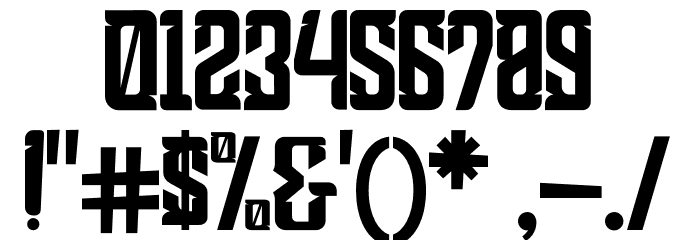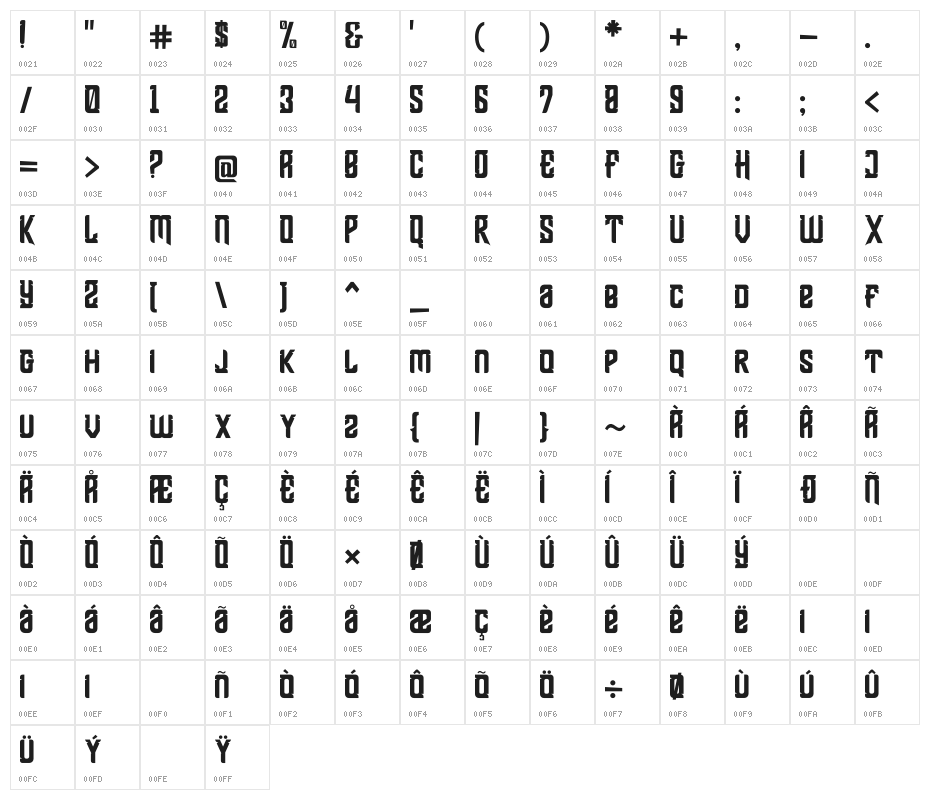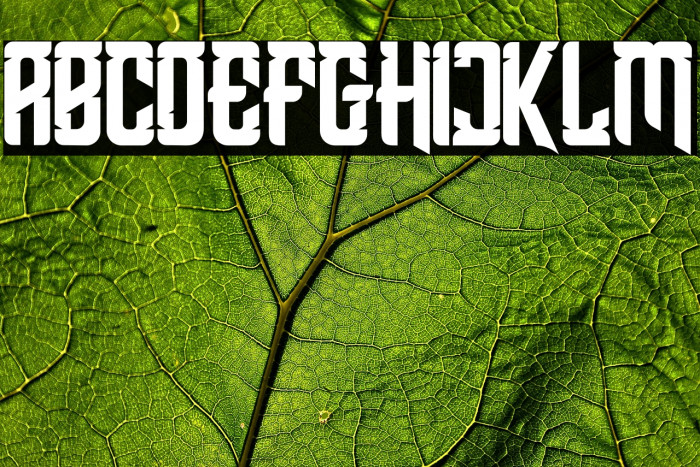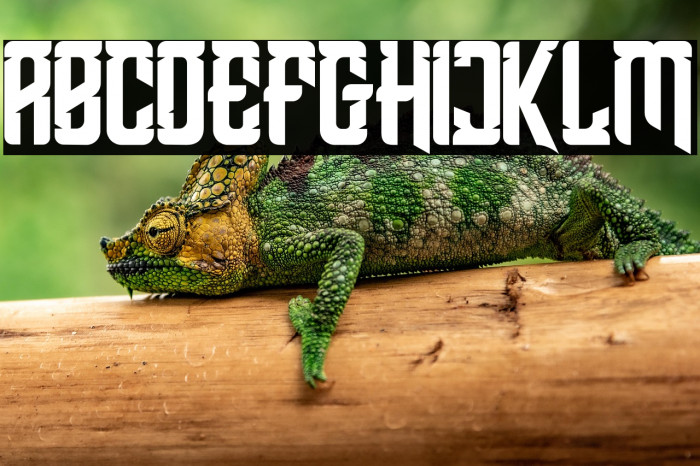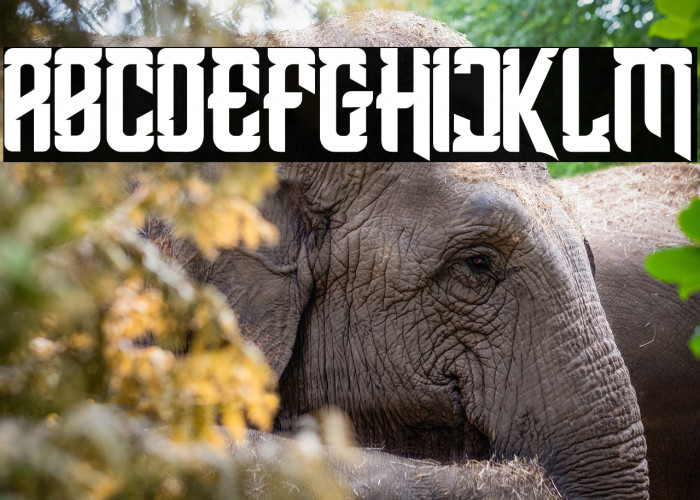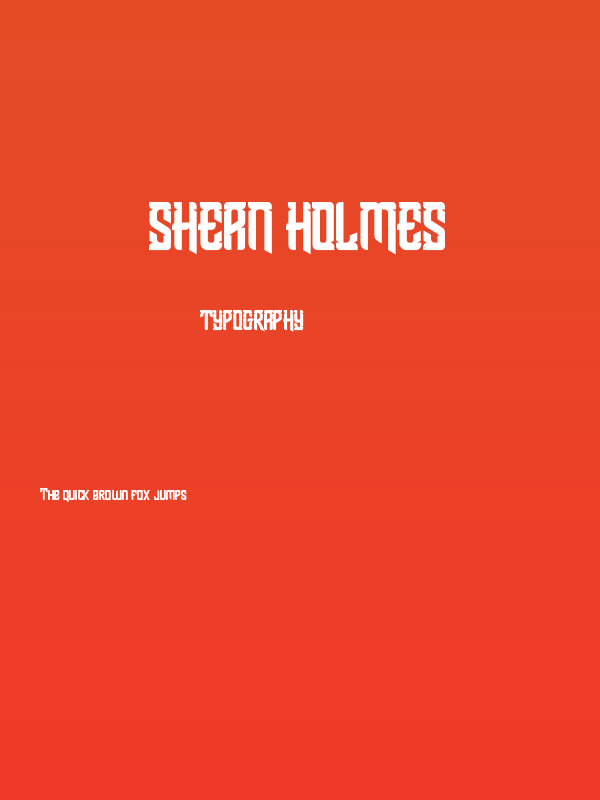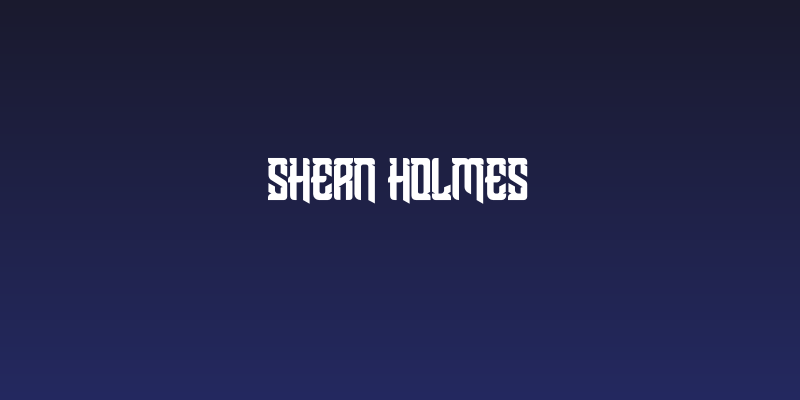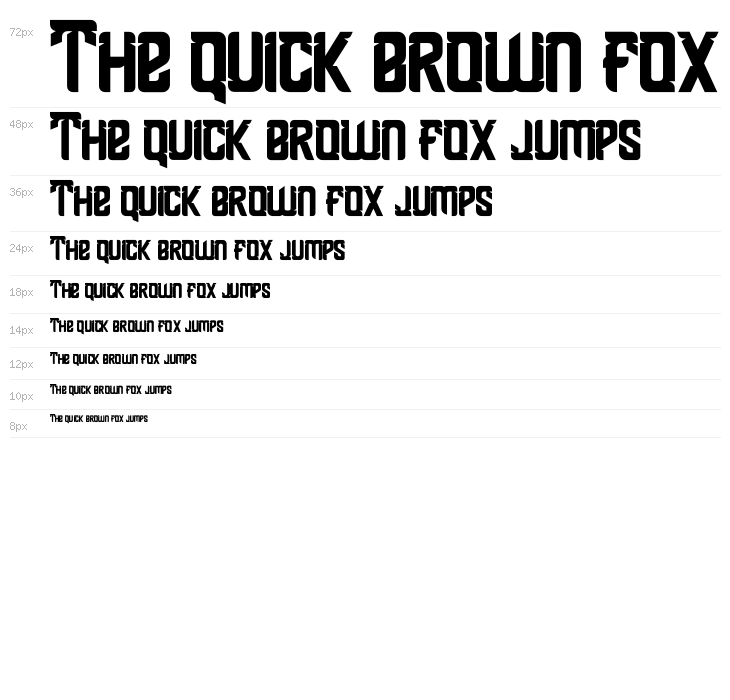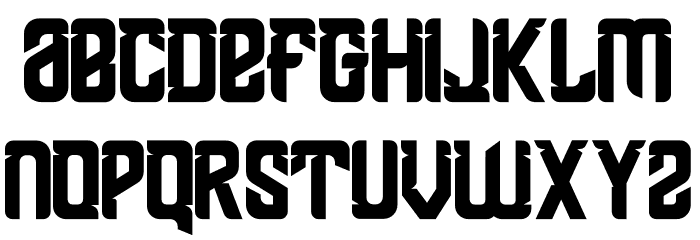
Shean Holmes Font
Shean Holmes Description
This font features a bold and striking design with a strong geometric influence. The characters are constructed with sharp angles and a consistent thickness, giving it a modern and industrial feel. The uppercase and lowercase letters share a similar structure, maintaining a cohesive look throughout. The numbers and special characters are equally bold, ensuring they stand out in any design. This font's unique style makes it ideal for creating impactful headlines or logos that require a strong visual presence.
| Proposed Projects | Ideal for branding, poster design, album covers, and any project requiring a bold, modern aesthetic. |